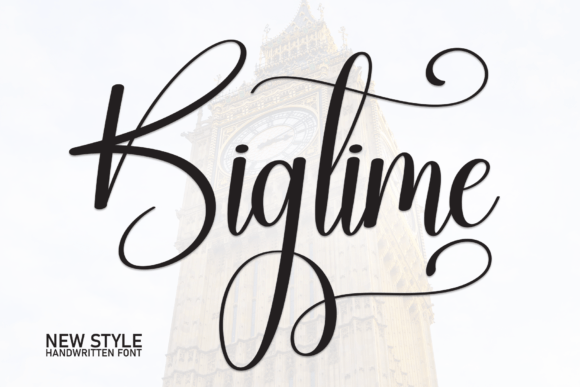
The Bigtime Font: A Timeless, Handwritten Masterpiece
Have you ever been in the middle of a design project, and suddenly, you just can’t seem to find the right font? I recall a particularly frustrating experience when I was working on a branding project for a luxury client. The brief required a font that exuded elegance, sophistication, and a touch of whimsy. After hours of scouring font libraries and testing dozens of options, I stumbled upon Bigtime – a flowing, handwritten font that instantly captured the essence of the project.
A Personal Review: What I Love About Bigtime
Bigtime is more than just a font; it’s an experience. Here’s what I love about it:
- ✨ Elegant touch: Bigtime boasts a refined, cursive style that’s perfect for projects that demand a high level of sophistication.
- ✅ Timeless style: The font’s classic design ensures it won’t go out of style anytime soon, making it a great investment for designers and crafters.
- 💫 Distinctive character: Bigtime’s unique personality shines through in every letter, making it an excellent choice for branding and advertising projects.
While Bigtime is an exceptional font, it’s not without its quirks:
- 🤔 Limited use in body text: Due to its elegant, cursive nature, Bigtime might not be the best choice for lengthy body text. It’s better suited for headings, titles, or short paragraphs.
- ⚠️ Ligature limitations: Bigtime’s ligatures can be a bit finicky, so be sure to test them thoroughly to ensure they work well with your design.
The Designer Inspiration Behind Bigtime
Bigtime was designed with the intention of creating a timeless, elegant font that would evoke the feeling of luxury and sophistication. The designer’s inspiration came from classic calligraphy and handwritten scripts, with a modern twist. The result is a font that’s both refined and distinctive, perfect for designers and crafters who want to add a touch of elegance to their projects.
| Font Name | Bigtime Font |
| What type of projects is Bigtime best suited for? | Bigtime is perfect for luxury branding, advertising, and high-end design projects that require a touch of elegance and sophistication. |
| Can I use Bigtime for body text? | While Bigtime is an exceptional font, it’s better suited for headings, titles, or short paragraphs. For lengthy body text, consider using a more traditional font. |
| Does Bigtime support OpenType features? | Yes, Bigtime supports OpenType features like ligatures and stylistic alternates, which can be accessed through the font menu in compatible design software. |
| Is Bigtime suitable for digital and print projects? | Bigtime is a versatile font that can be used for both digital and print projects, from social media graphics to business cards and brochures. |